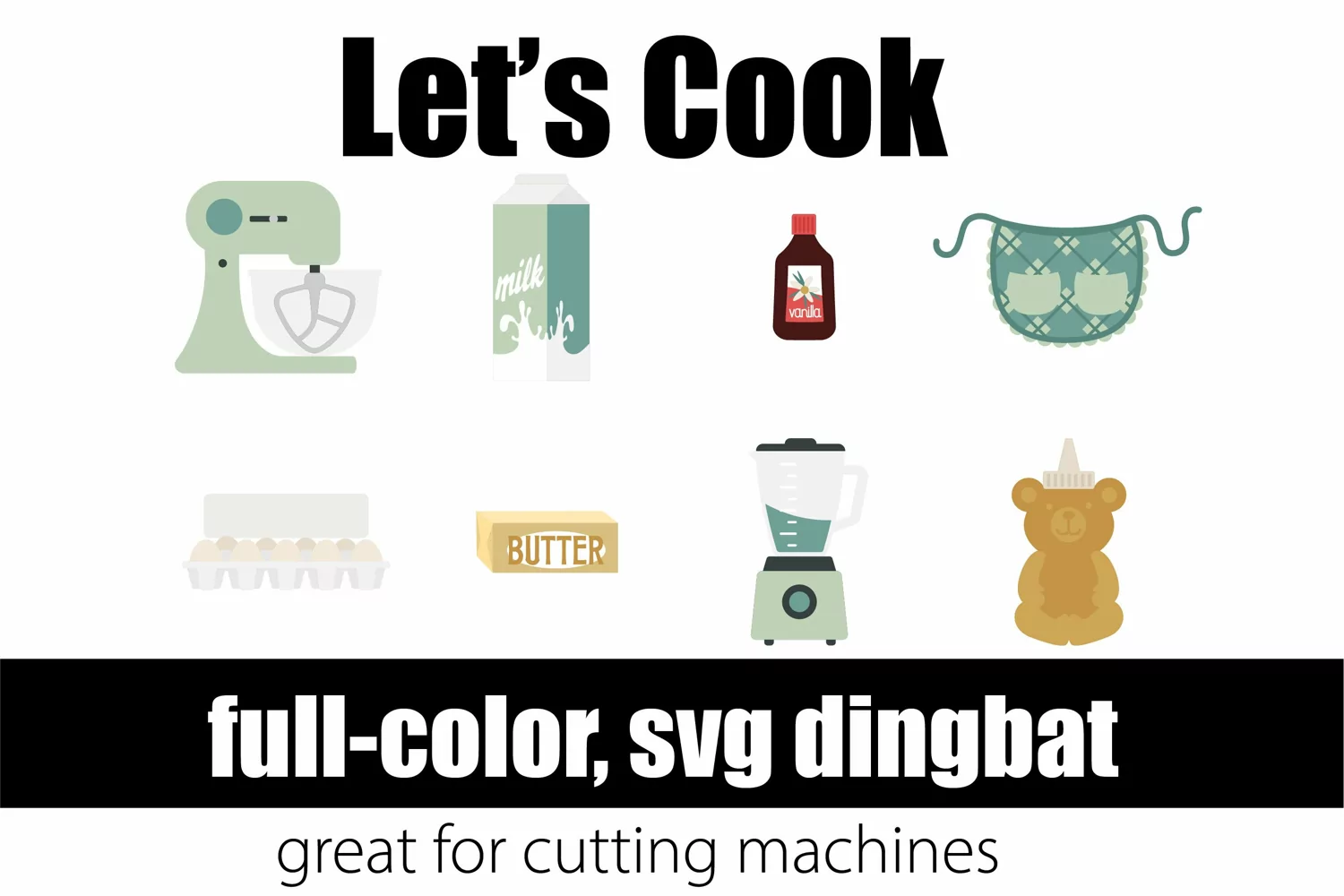
Let's Cook
This full-color dingbat font features everything you need to make a gourmet meal. The Let's Cook dingbat is accompanied by the Cookery and Cuttlery dingbat.